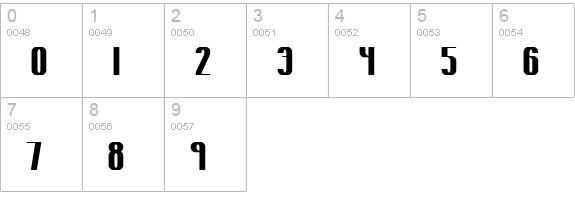
Yielding -BRK- font is a versatile and modern typeface that exudes a sense of creativity and elegance. Its sleek and polished design makes it perfect for a wide range of projects, from branding to editorial design. With its unique blend of soft curves and sharp angles, Yielding -BRK- font brings a touch of sophistication to any text. What sets Yielding -BRK- font apart is that it is available for free download at FontsMarket.com. This means that you can access this stunning font without any cost, making it a valuable addition to your design toolkit. Whether you're working on a personal project or a professional assignment, Yielding -BRK- font offers a high-quality and stylish option for your typography needs. So why wait? Download Yielding -BRK- font today and elevate your designs to new heights.